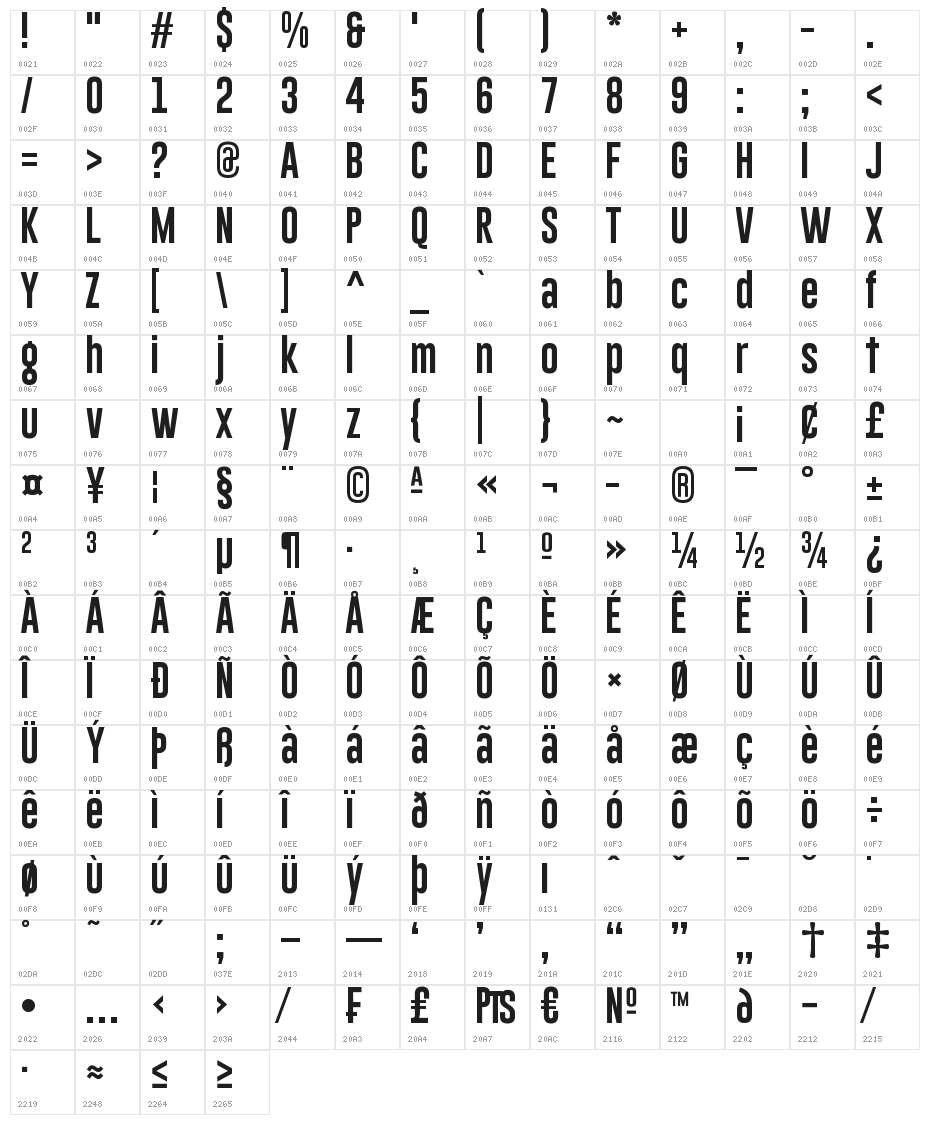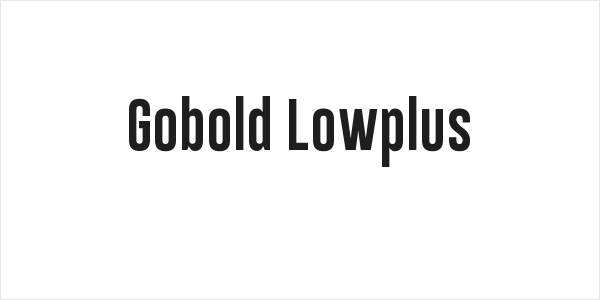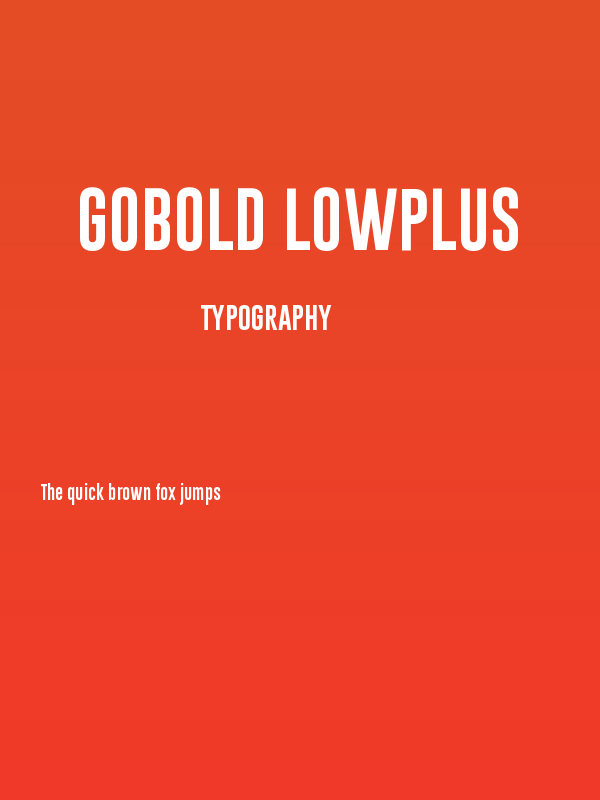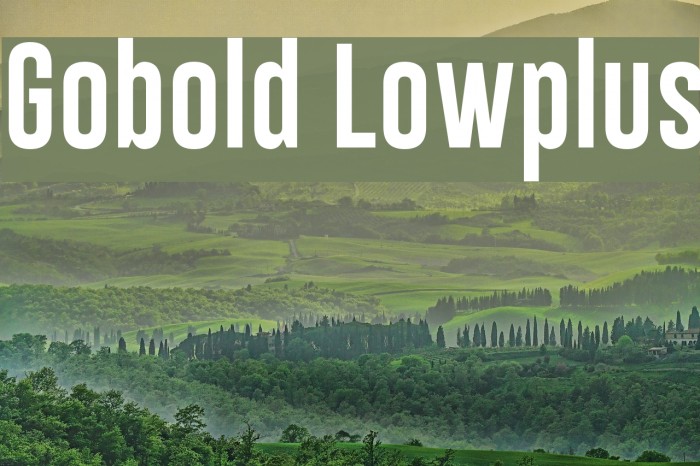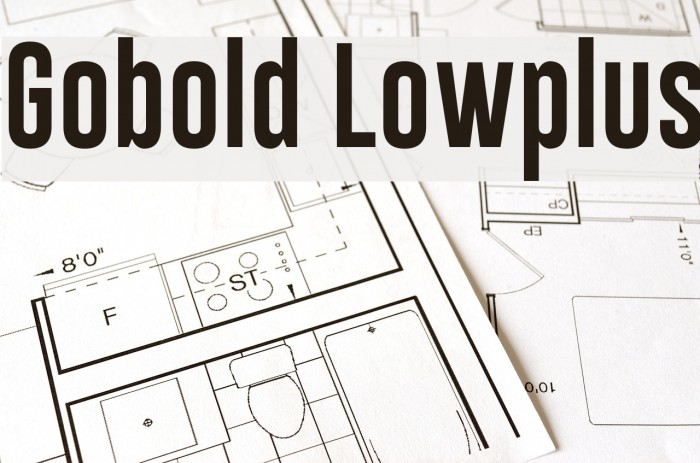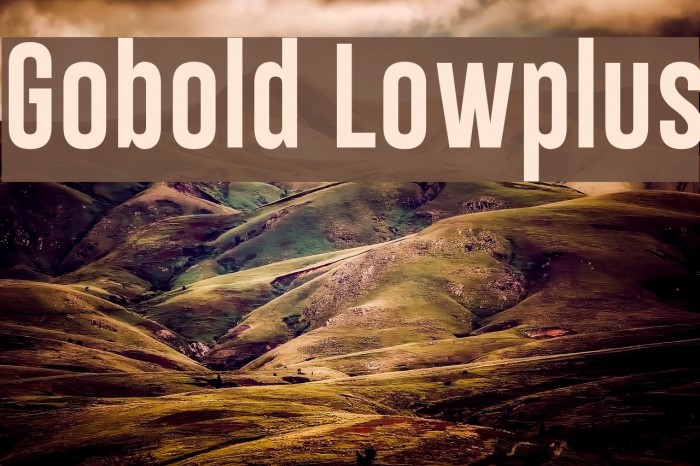
Gobold Lowplus Font
Gobold Lowplus Description
This font features a bold and impactful design with a strong presence. The characters are tall and narrow, giving it a condensed appearance that maximizes space efficiency. The uppercase and lowercase letters maintain a consistent height, contributing to a uniform look. The numbers are equally bold, ensuring readability and emphasis. Special characters are designed with the same boldness, making them stand out. The font's clean lines and lack of serifs give it a modern and sleek aesthetic, suitable for various design applications.
| Proposed Projects | Ideal for headlines, posters, branding, and advertising where a strong visual impact is needed. |